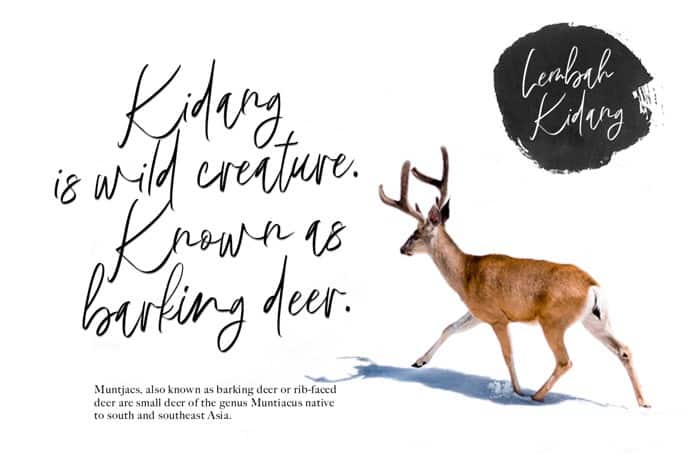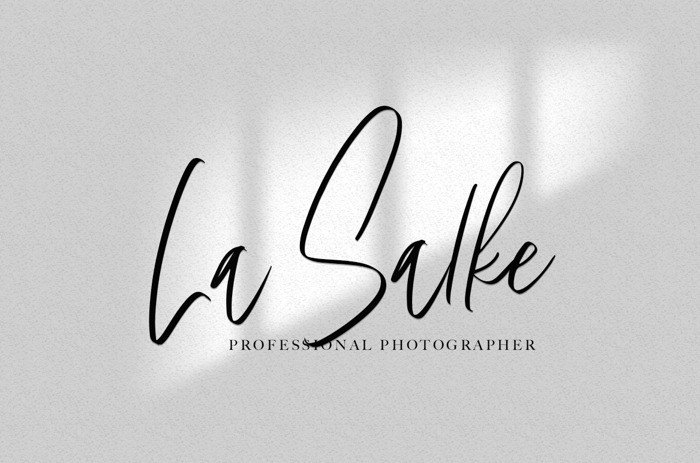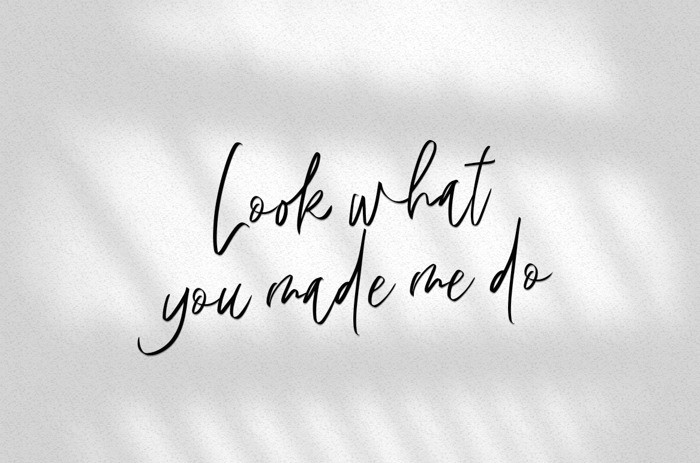
Lembah Kidang Handwritten Font
Hello Lembah Kidang Handwritten Font! – A new Signature with awesome, endless possibilities. A perfect addition to the professional designers font. This typeface is designed and shared by Agniardi. It is perfect for signature logos, invitation cards, business cards, inspirational quotes, posters, blog headers, wedding design, packaging, wall art, custom printables and a lot more!